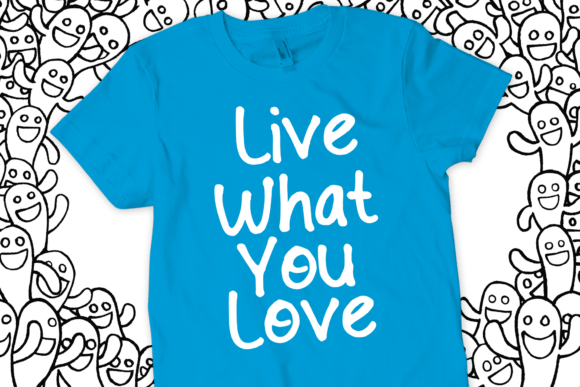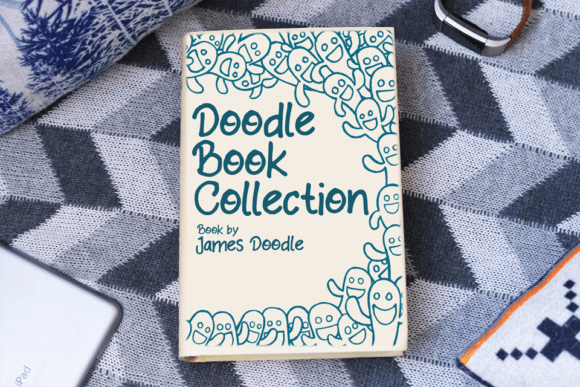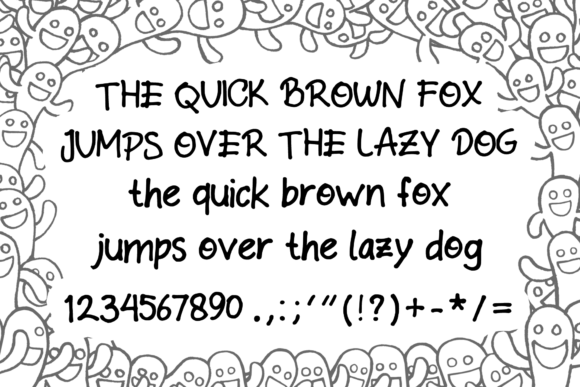
Unleashing Your Inner Artist: The Magic of Doodle Marker Font
Do you remember the thrill of creating something with your bare hands as a child? The scratch of the crayon, the swoosh of the paint, the scratchy feel of a marker on paper? For many of us, those carefree moments sparked a lifelong passion for art and creativity. As adults, we often find ourselves constrained by the rules of design and the need for perfection. But what if you could tap into that childlike wonder and bring it to your designs?
Enter the Doodle Marker Font, a delightful display font that captures the essence of hand-drawn creativity. This charming font is perfect for adding a casual, playful touch to your designs, from t-shirts and kids’ book illustrations to greeting cards and stickers. Its versatility makes it a valuable asset for designers looking to inject some personality into their work. Whether you’re a seasoned pro or just starting out, the Doodle Marker Font is sure to inspire your next creative project.
Doodle Marker Font Key Features
- Unique Characteristics: Hand-drawn doodle style, playful and whimsical design, perfect for kids’ educational materials, art projects, and creative writing
- Font Style and Variations: Includes uppercase and lowercase letters, numbers, punctuation marks, and special characters, with multiple font styles (e.g., bold, italic, outline)
Doodle Marker Font Review
I recently had the chance to work with the Doodle Marker Font, and I must say it’s a mixed bag. ✨ On the plus side, I love the playful and whimsical feel it adds to any design. The font is perfect for creating a fun and childlike atmosphere, which makes it great for kids’ content, educational materials, or even party invitations. The font also comes with a variety of styles and sizes, making it easy to customize and get the look you want.
Here are some of the things that work well:
- Playful and whimsical feel ✨
- Customizable styles and sizes
- Perfect for kids’ content and educational materials
However, there are some limitations that might make it less ideal for certain projects.
- ⚠️ Limited use in professional or formal contexts
- ⚠️ May not be suitable for projects that require a more sophisticated or elegant feel
Overall, I think the Doodle Marker Font is a great choice for designers who want to add a playful touch to their projects. While it may not be suitable for every project, it’s a fun and versatile font that can add a lot of personality to your designs.
Getting the Most Out of Doodle Marker Font
To get the most out of the Doodle Marker Font, try the following tips:
- Experiment with different font sizes and colors to create visual interest.
- Use the font in combination with other creative elements, such as doodles and illustrations.
- Play with the font’s unique characteristics, such as its handwritten feel and imperfections.
The Doodle Marker Font is commonly used in:
- Children’s educational materials, such as worksheets and activity sheets.
- Marketing materials, such as social media graphics and advertisements.
- Personalized gifts, such as customized cards and invitations.